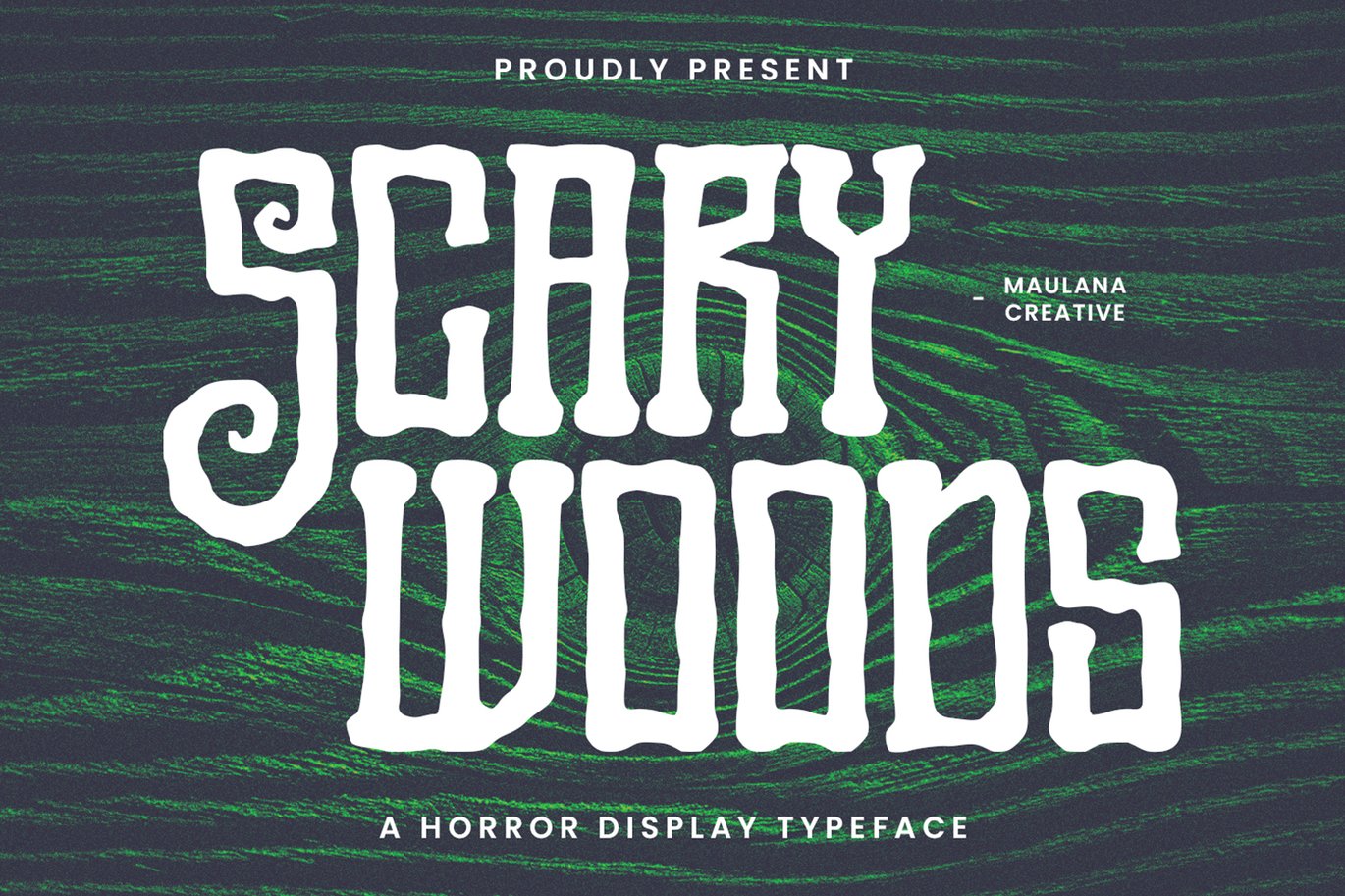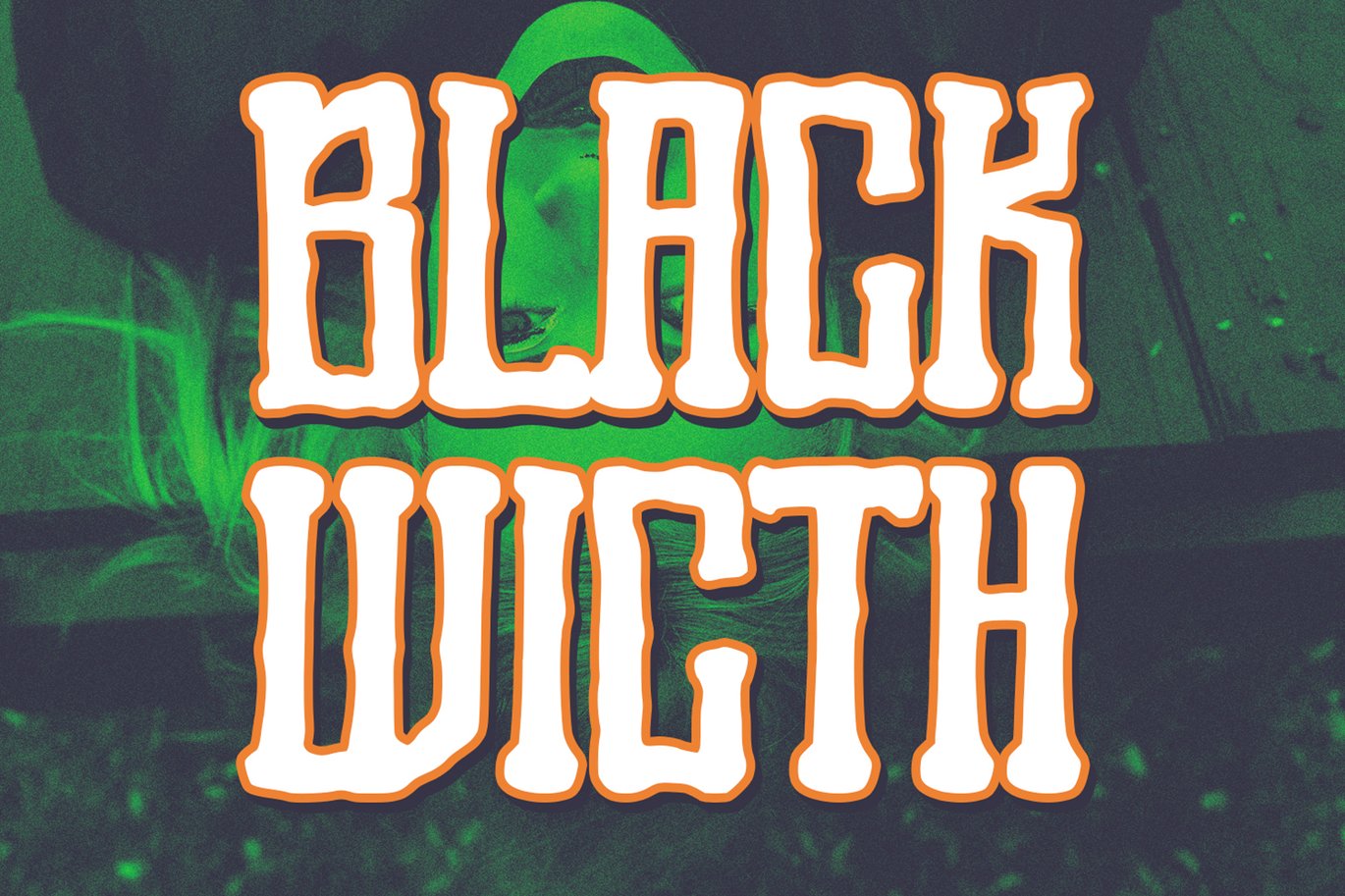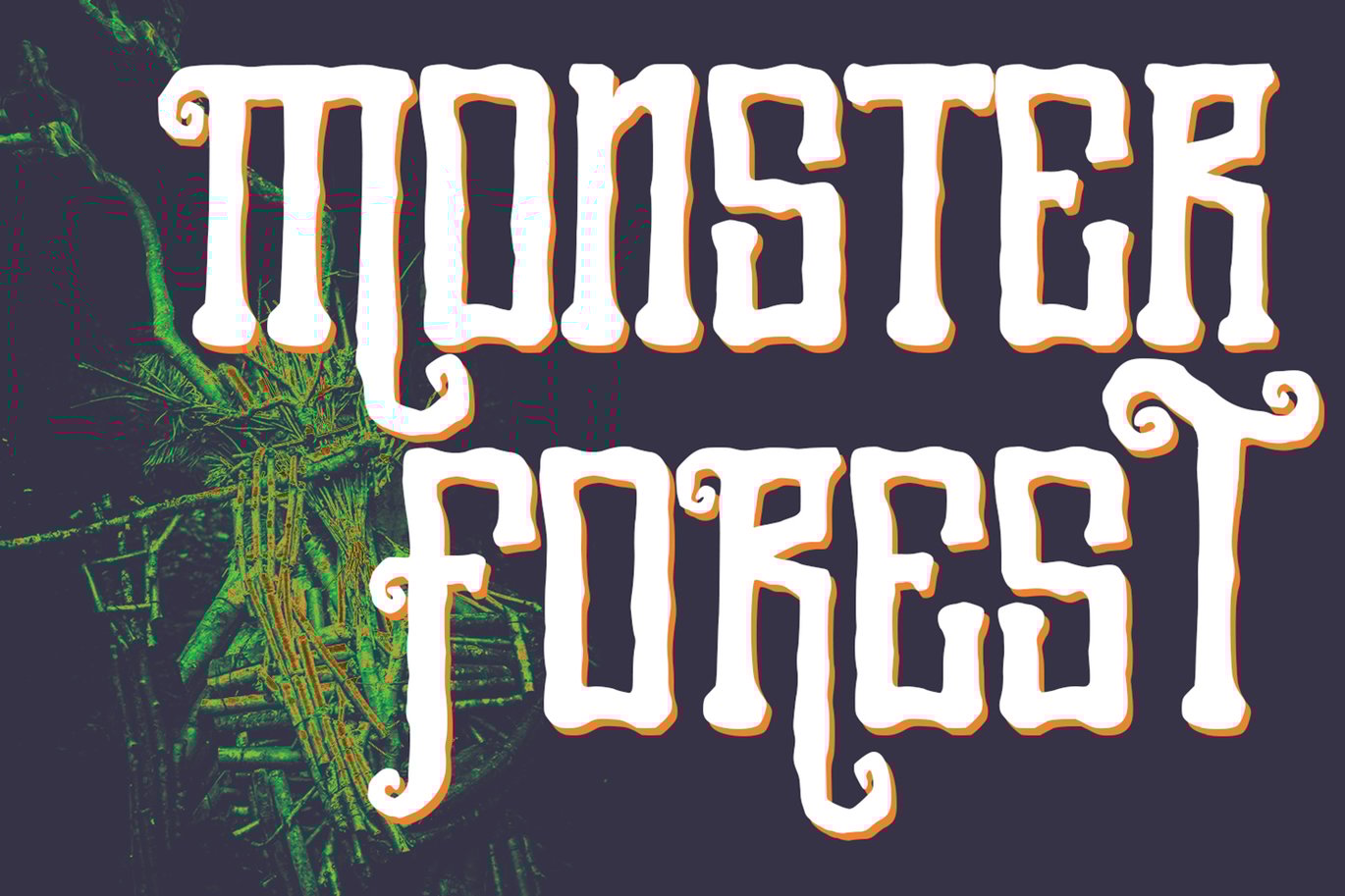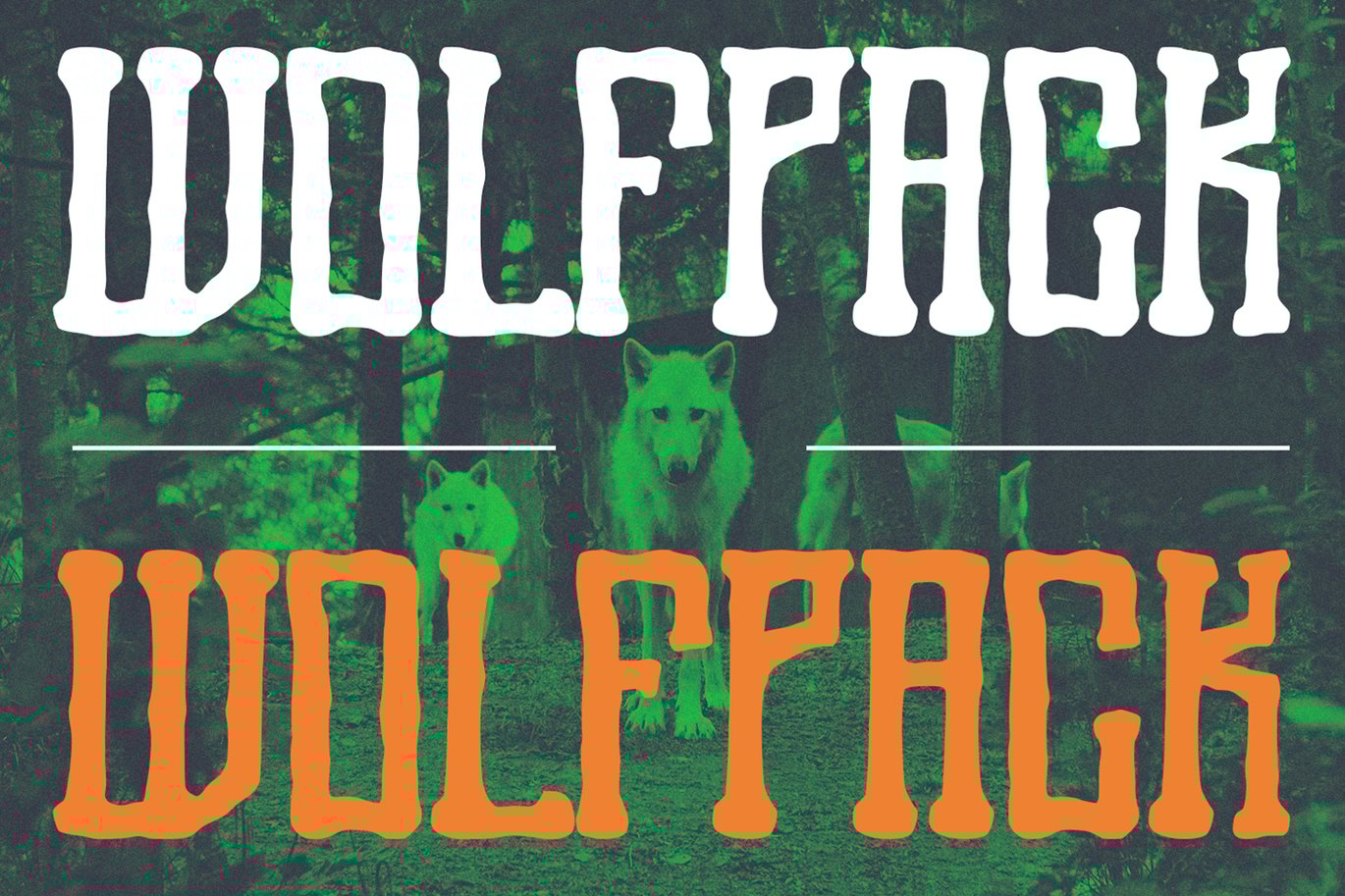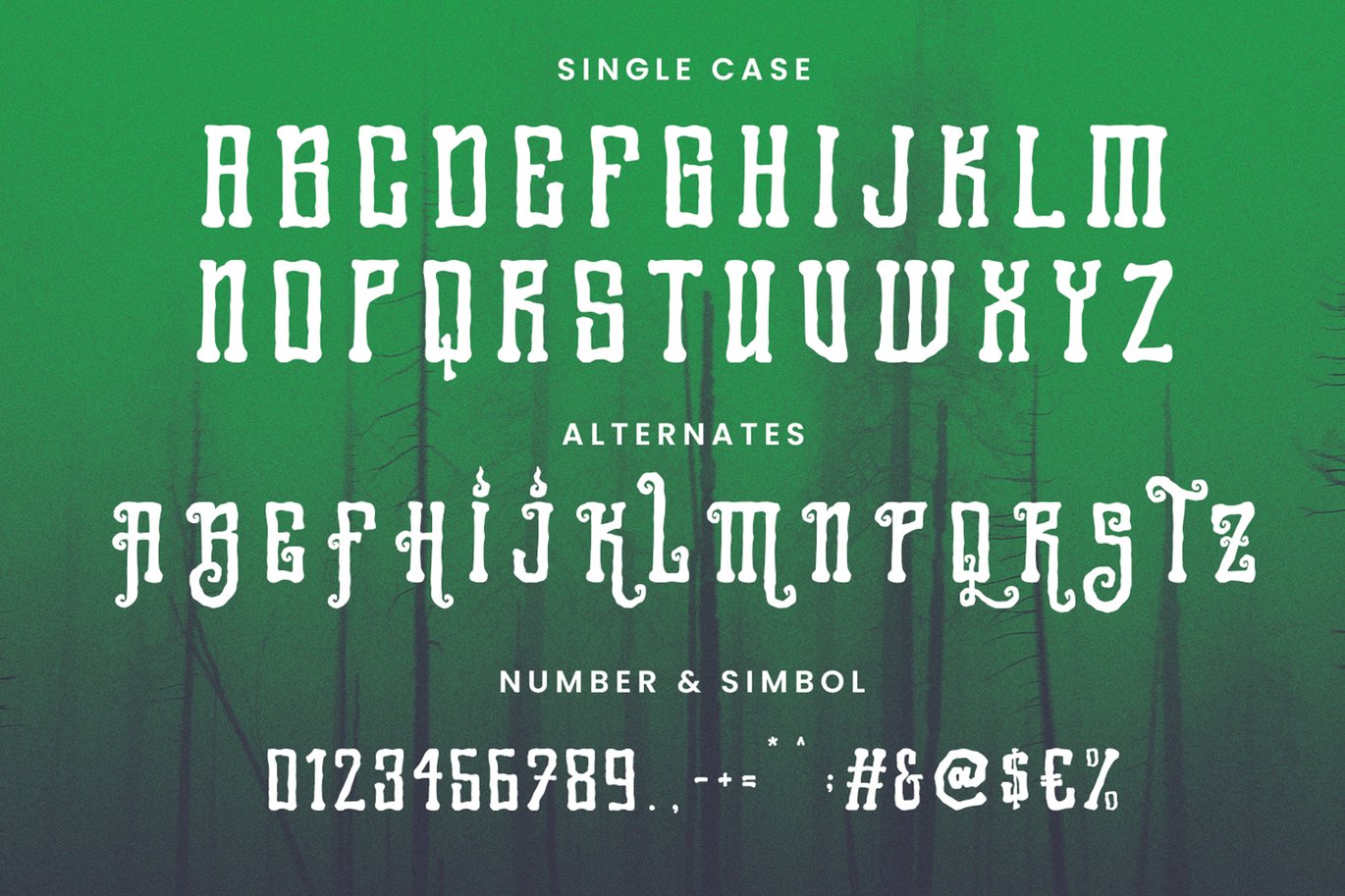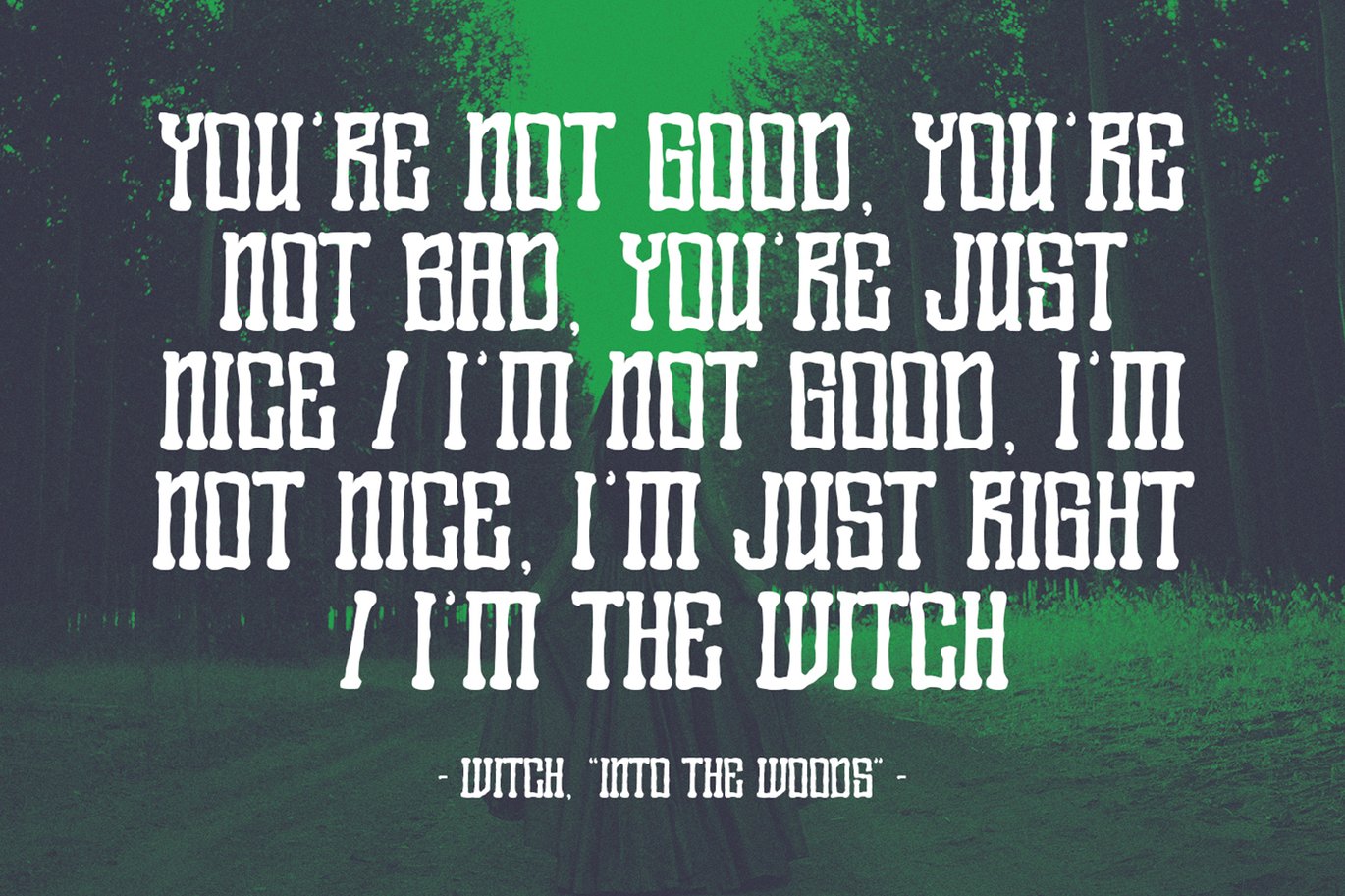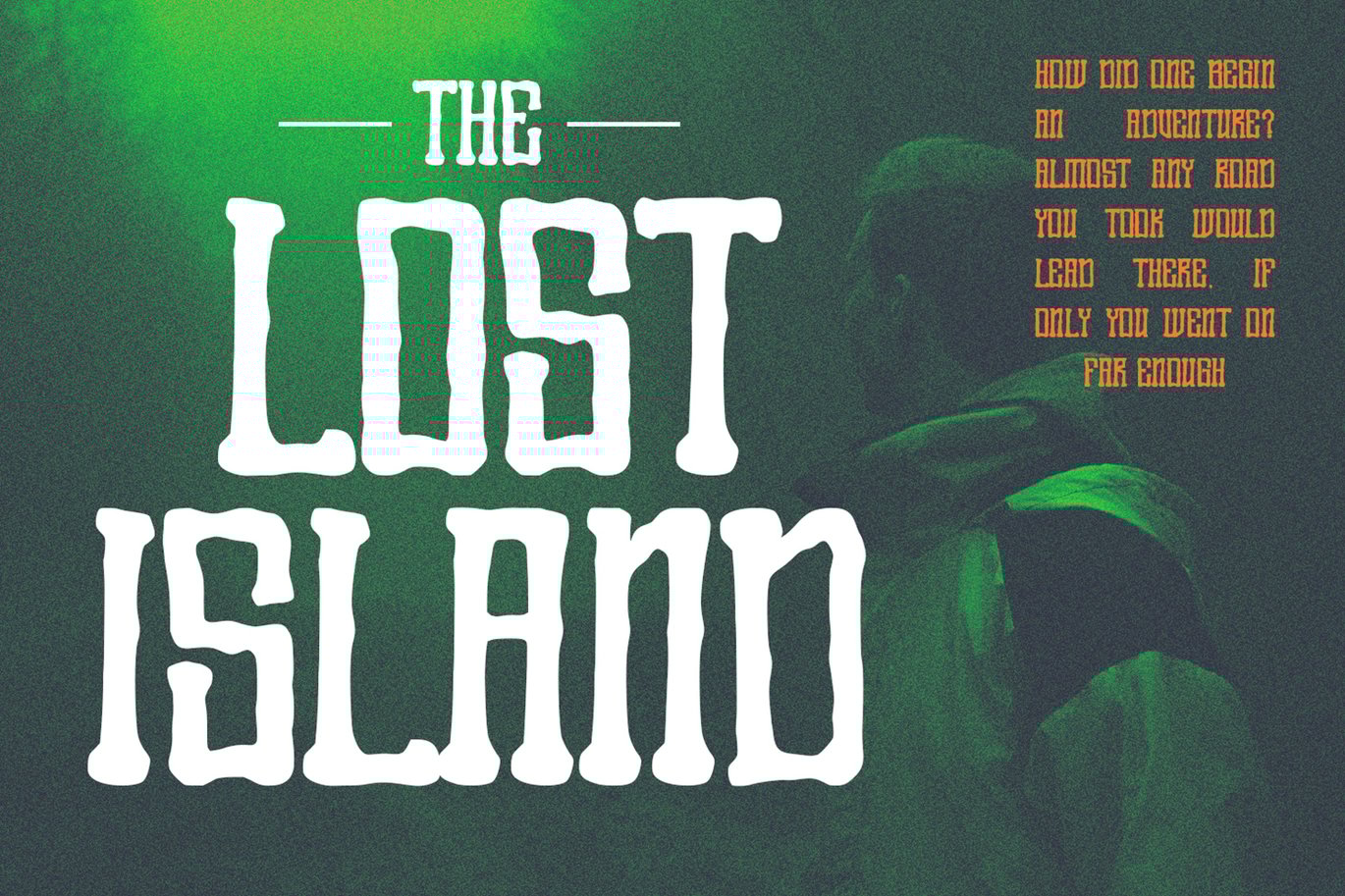
Scary Woods Display Font
Scary Woods display font. Light stroke, fun character with a bit of ligatures and alternates. To give you an extra creative work. Scary Woods font support multilingual more than 100+ language. This font is good for logo design, Social media, Movie Titles, Books Titles, a short text even a long text letter and good for your secondary text font with script or serif. Make a stunning work with Scary Woods font.